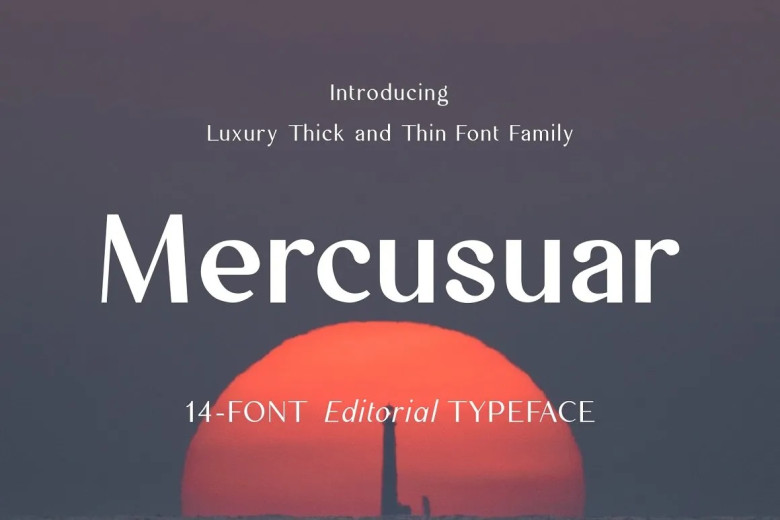
Mercusuar Font
Mercusuar + offers 16 typefaces, including regular and italic, in weights from Thin to Bold Without losing any of clean sleek lines or trendy minimalist vibe! Cutoffs of lowercase and uppercase letters when used in large sizes crank up to reveal exquisite detail you had missed on papers too small to support the ink Mercusuar is fine texture with all rounded corners that crafts elegant forms
Mercusuar Sans Serif Font